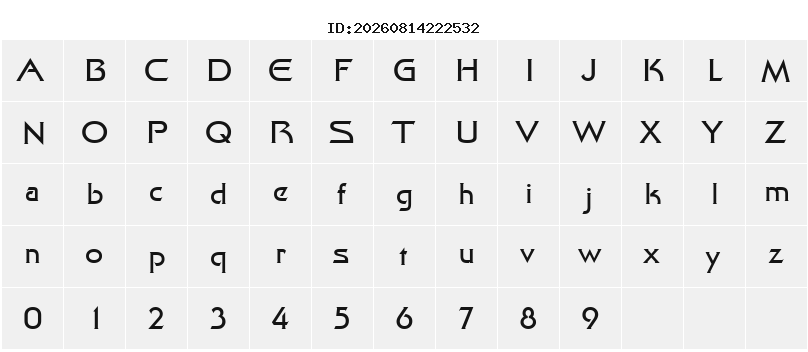
StarTrek Film BT Preview
• Font Name: StarTrek Film BT
• Font ID: Star Trek Film, Copperplate 401
• Full Font Name: Star Trek Film BT
• PostScript Name: StarTrekFilmBT-Regular
About StarTrek Film BT.ttf
StarTrek Film BT.ttf is a modern, elegant sans-serif font designed for ultimate readability and visual harmony. Perfect for branding, headlines, web design, and print materials.